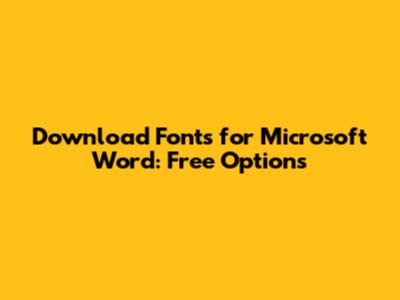
Hey guys! Ever felt like your Microsoft Word documents are looking a bit…blah? One of the easiest ways to spice things up and add some personality is by using custom fonts. Whether you're crafting a resume, designing a flyer, or just want your school papers to stand out, having the right font can make all the difference. Luckily, downloading and installing new fonts for Microsoft Word is super easy, and I'm here to walk you through it. We'll cover everything from finding reliable font sources to installing them properly, ensuring they show up in your Word font list without a hitch. So, let's dive in and give your documents a fresh, new look!
Why Bother Downloading New Fonts?
Let's be real, the default fonts in Microsoft Word—Times New Roman, Arial, Calibri—are classics for a reason, but they can get a little boring after a while. By downloading new fonts, you're not just changing the way your text looks; you're also enhancing the overall impact and readability of your documents. Imagine using a sleek, modern font for your resume to catch a recruiter's eye, or a playful, handwritten-style font for a party invitation. The possibilities are endless! Plus, different fonts evoke different emotions and can help you set the right tone for your message. A serious report might benefit from a professional-looking serif font, while a creative project could shine with a unique display font. Think of fonts as a design element that can elevate your work from ordinary to extraordinary. And the best part? There are tons of free fonts available online, so you don't have to break the bank to give your documents a makeover. You can really express your personality and creativity through typography. So, whether you're a student, a professional, or just someone who loves to create, exploring new fonts is a fun and easy way to make your work stand out. Trust me; once you start experimenting, you'll wonder how you ever stuck with the same old fonts for so long.
Finding Reliable Font Sources
Step-by-Step Guide: Downloading and Installing Fonts
Alright, let's get down to the nitty-gritty of downloading and installing fonts. It's a straightforward process, but here's a step-by-step guide to ensure everything goes smoothly:
Troubleshooting Tips:
Follow these steps, and you'll be rocking new fonts in no time! It's a simple way to add some flair to your documents and make them stand out.
Managing and Organizing Your Fonts
As you start downloading more and more fonts, you might find yourself with a massive collection that's difficult to manage. Here are some tips for organizing your fonts and keeping things under control. First, create a dedicated folder on your computer for all your fonts. This will make it easier to find and manage them. You can create subfolders within this folder to categorize your fonts by style, such as serif, sans-serif, script, or display. This can be really helpful when you're trying to find the perfect font for a specific project. Another useful tip is to use a font management tool. There are several software programs available that can help you organize, preview, and activate/deactivate fonts. Some popular options include FontBase, NexusFont, and RightFont. These tools allow you to easily browse through your fonts, create font sets for different projects, and activate only the fonts you need at any given time. This can help improve your computer's performance by reducing the number of active fonts. Also, regularly review your font collection and remove any fonts you no longer use. This will not only free up space on your hard drive but also make it easier to find the fonts you actually need. When deleting fonts, make sure to uninstall them properly through your operating system's font management tools. On Windows, you can go to the Control Panel, select "Fonts," and then delete the fonts you want to remove. On macOS, you can use the Font Book application to disable or remove fonts. By following these tips, you can keep your font collection organized and manageable, making it easier to find the perfect font for any project. Trust me, a little bit of organization can go a long way in saving you time and frustration.
Exploring Different Font Styles
Now that you know how to download and install fonts, let's talk about exploring different font styles. The world of typography is vast and varied, and there's a font out there for every occasion. Understanding the different font styles can help you choose the right font for your project and create visually appealing documents. Serif fonts are characterized by small decorative strokes at the end of each letter. They are often used for body text in books, newspapers, and magazines because they are considered easy to read in large blocks of text. Some popular serif fonts include Times New Roman, Garamond, and Georgia. Sans-serif fonts, on the other hand, lack these decorative strokes. They have a cleaner, more modern look and are often used for headlines, logos, and web design. Arial, Helvetica, and Calibri are some well-known sans-serif fonts. Script fonts mimic the look of handwriting. They can add a personal and elegant touch to your documents, but they should be used sparingly, as they can be difficult to read in large amounts of text. Brush Script, Edwardian Script, and Pacifico are popular script fonts. Display fonts are designed to grab attention. They come in a wide variety of styles, from bold and blocky to whimsical and decorative. They are best used for headlines, posters, and other visual elements where you want to make a statement. Impact, Bebas Neue, and Lobster are examples of display fonts. When choosing a font, consider the purpose of your document and the message you want to convey. A formal document might call for a classic serif font, while a creative project could benefit from a more unique display font. Experiment with different font styles and combinations to find what works best for you. You can also use online tools like FontPair to find complementary font pairings that look great together. Don't be afraid to step outside your comfort zone and try something new. You might be surprised at what you discover!